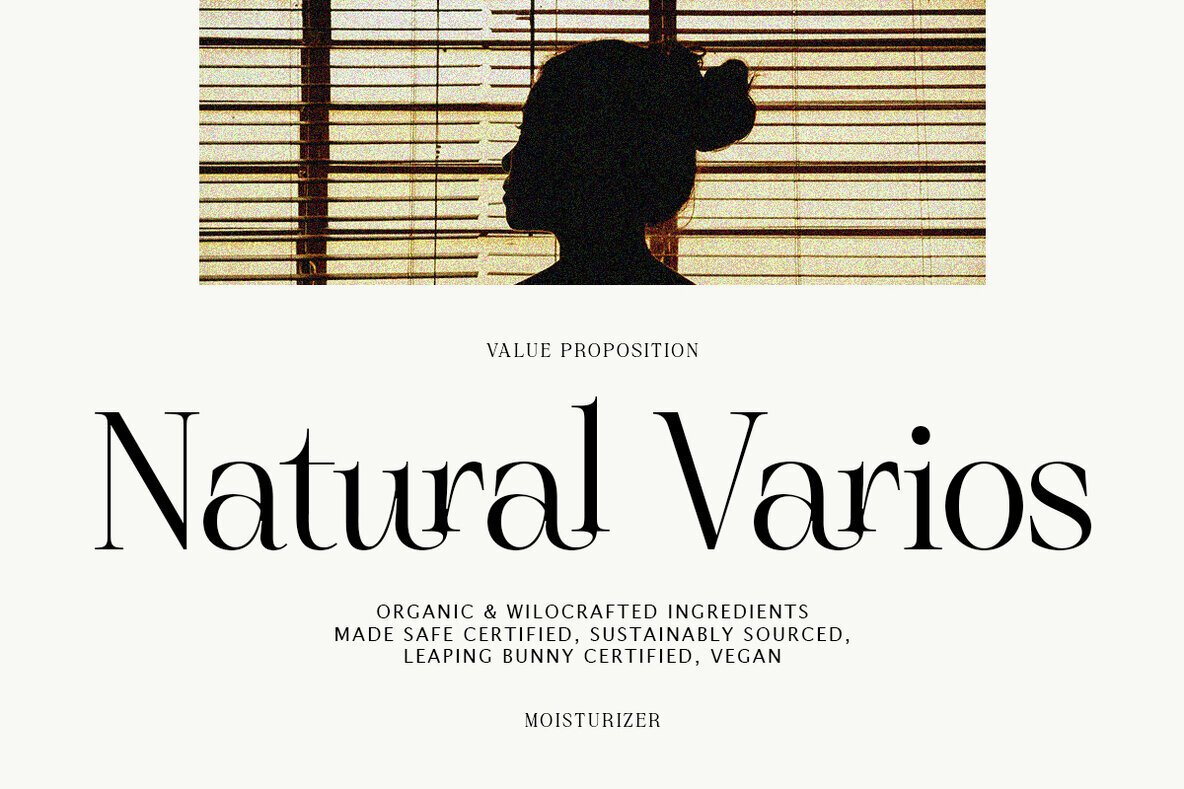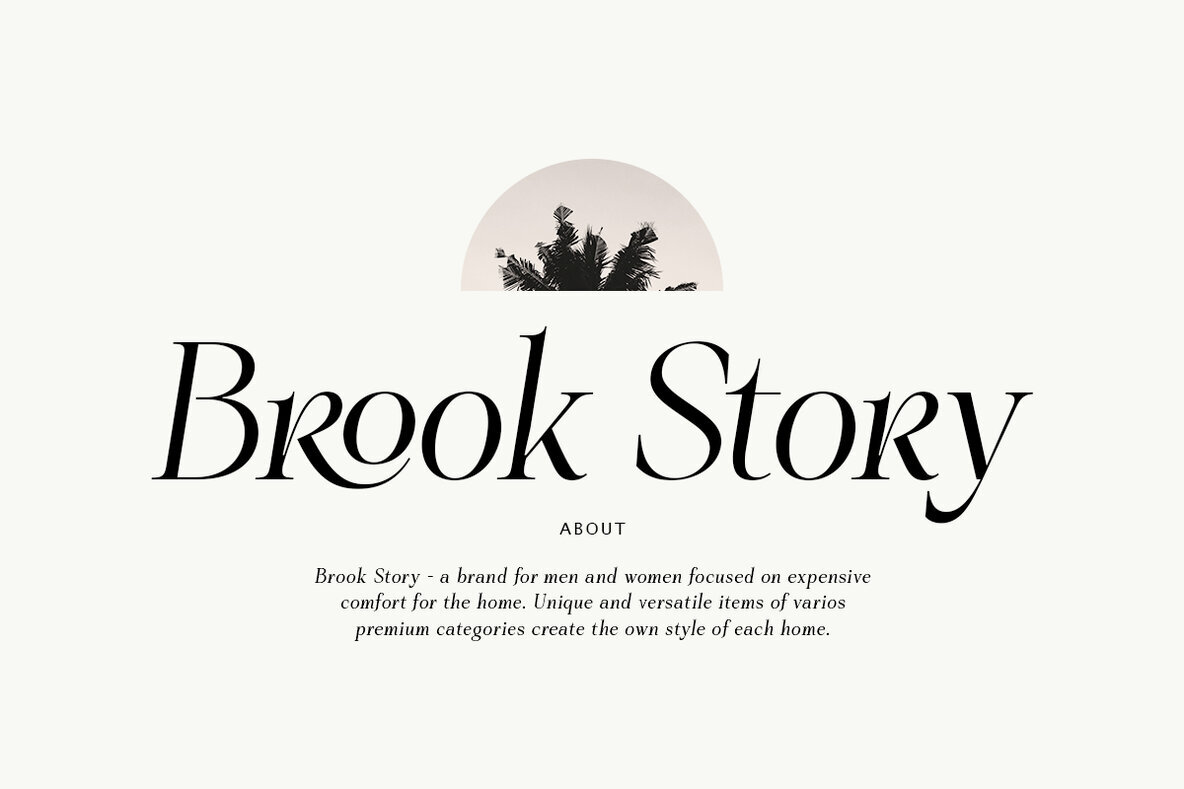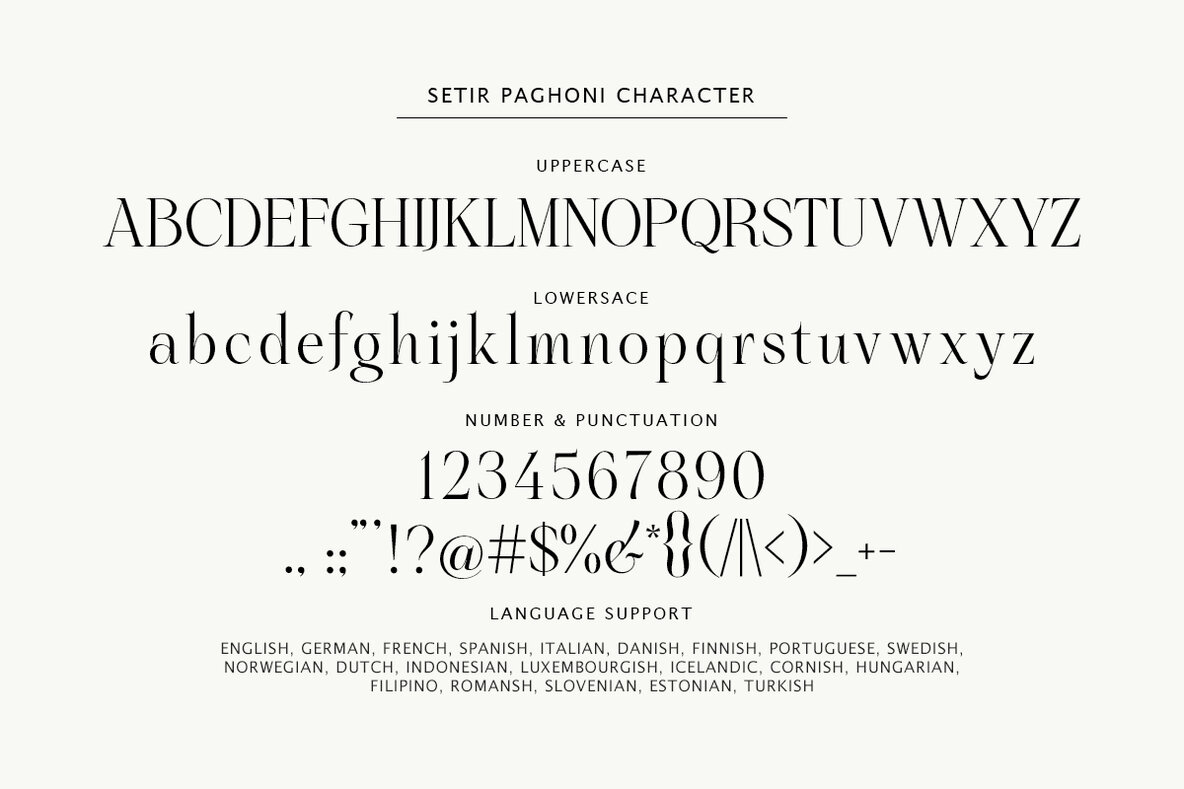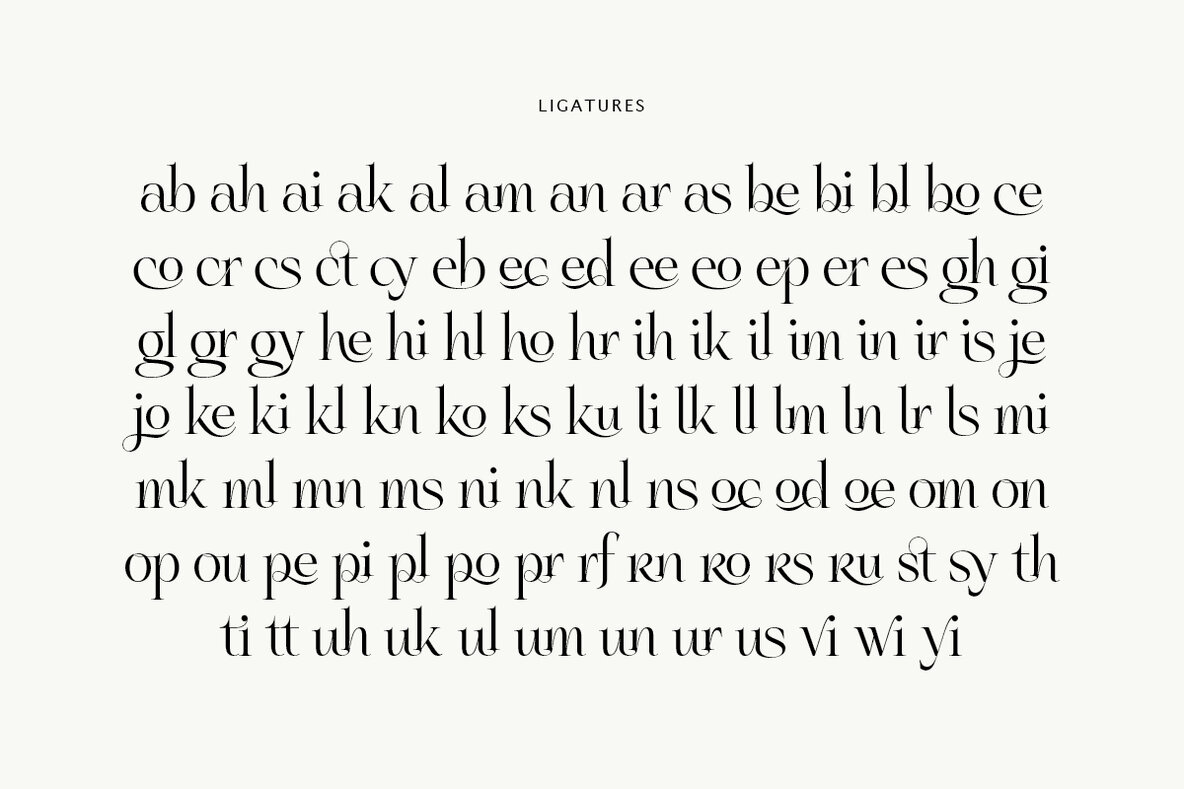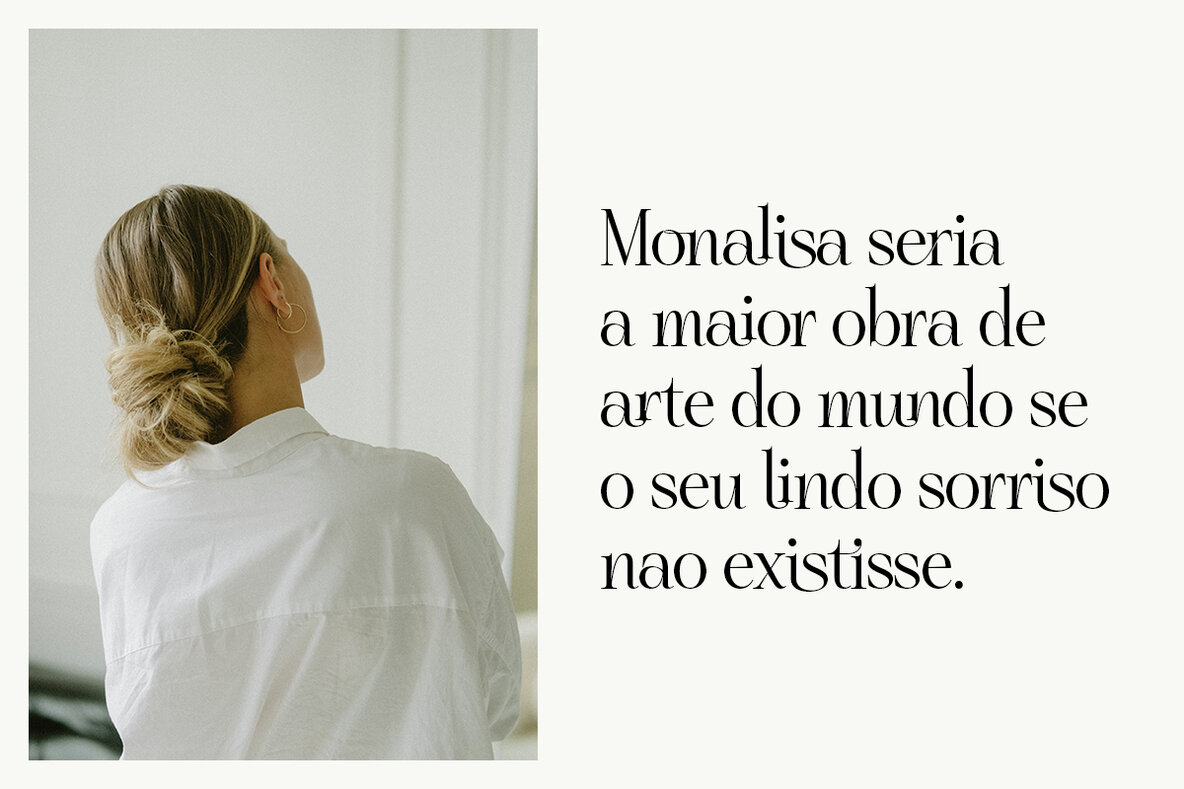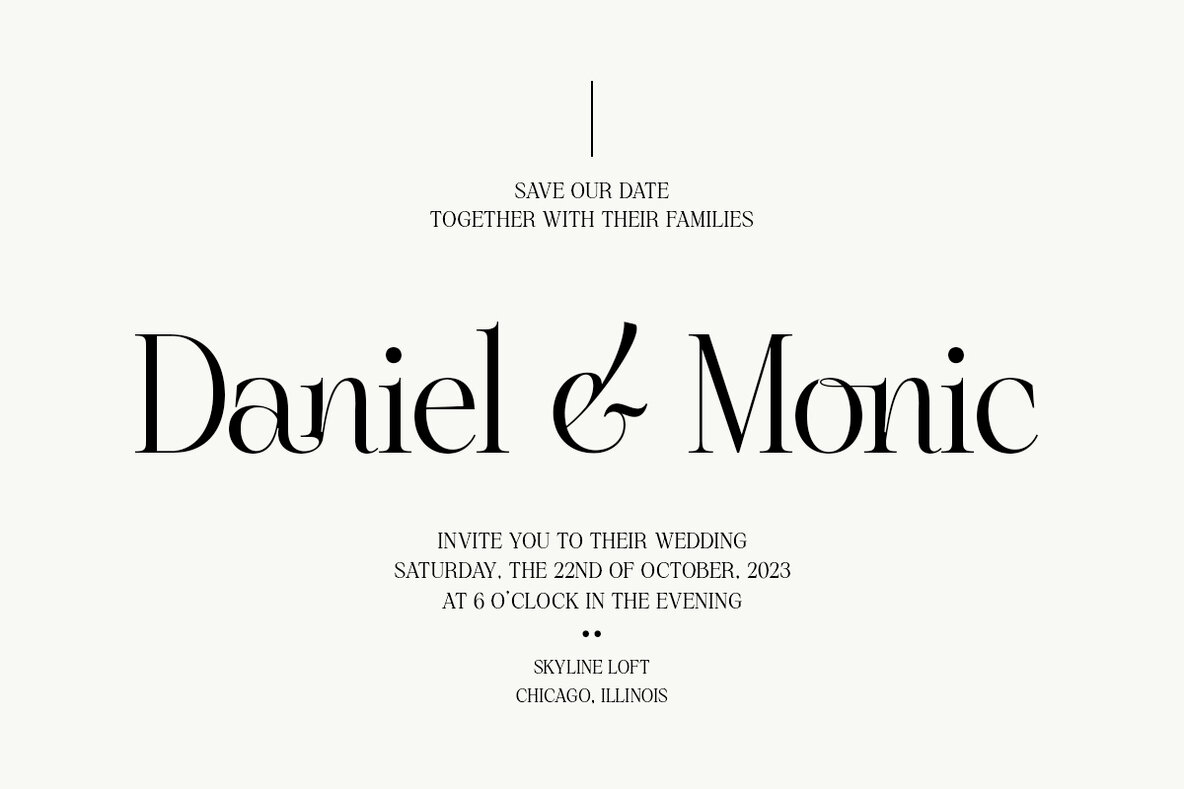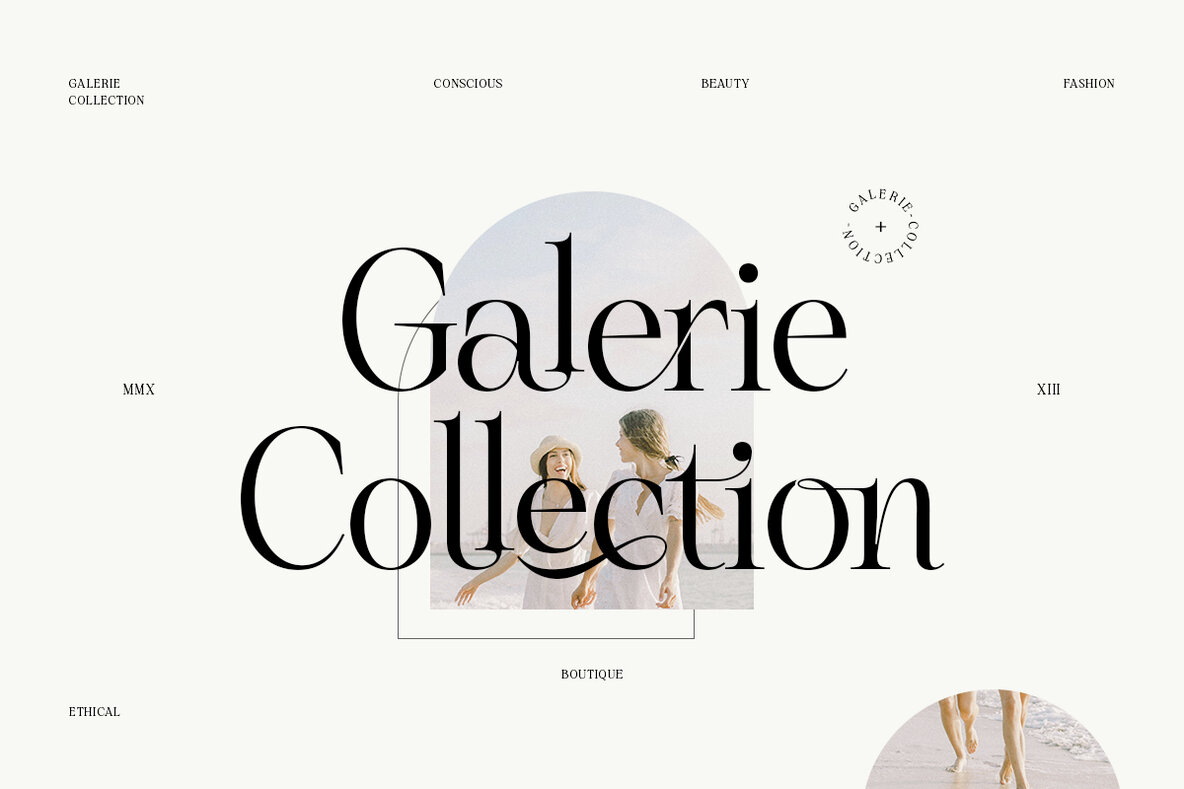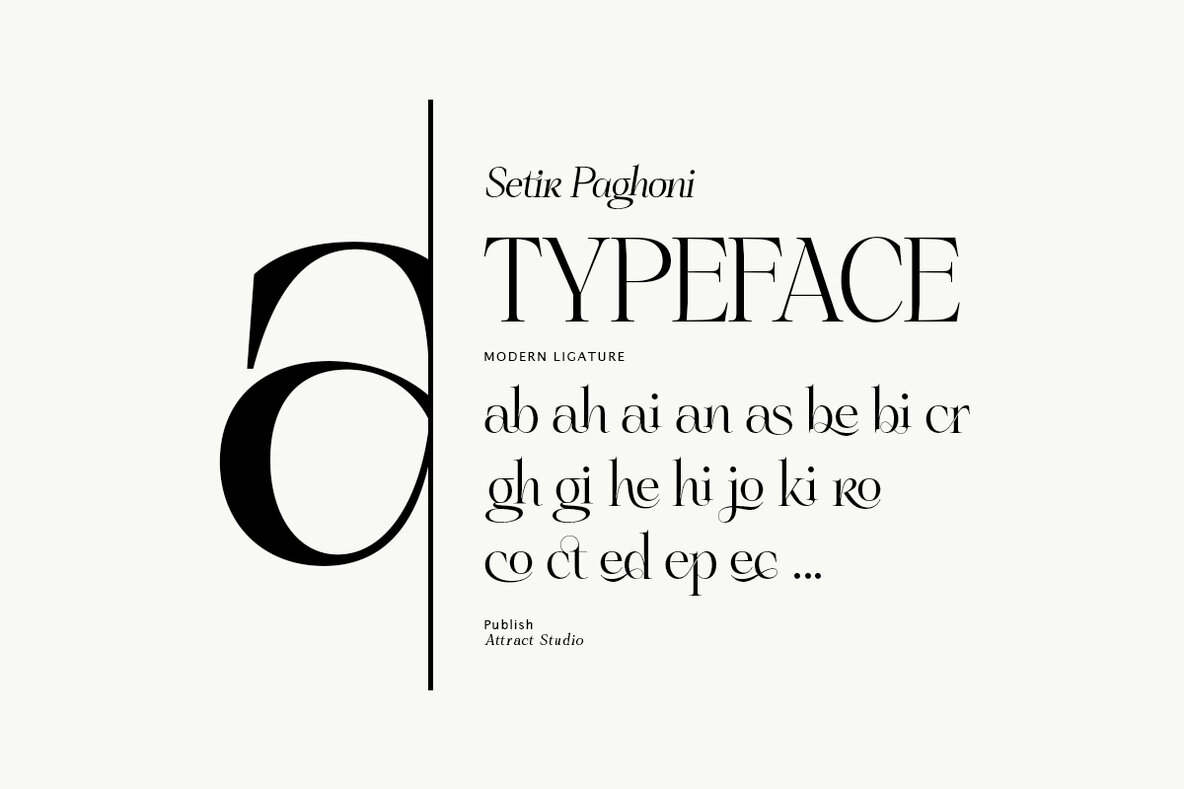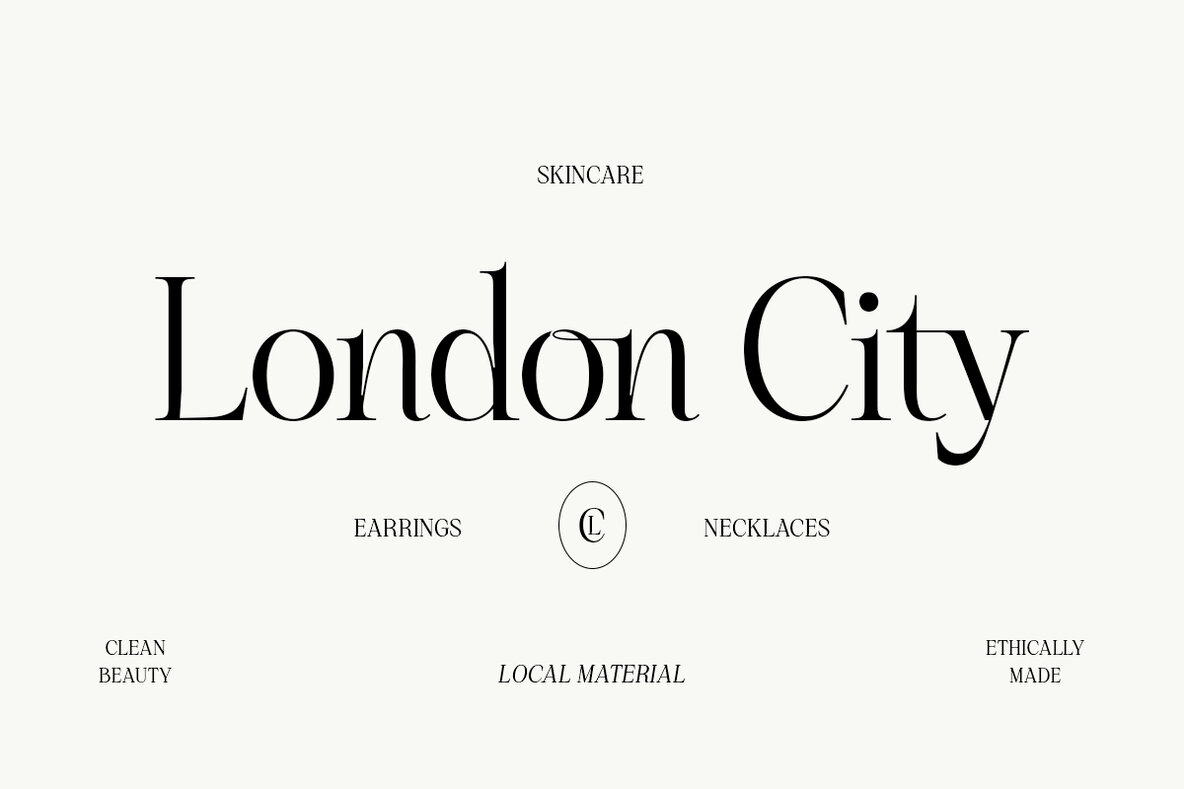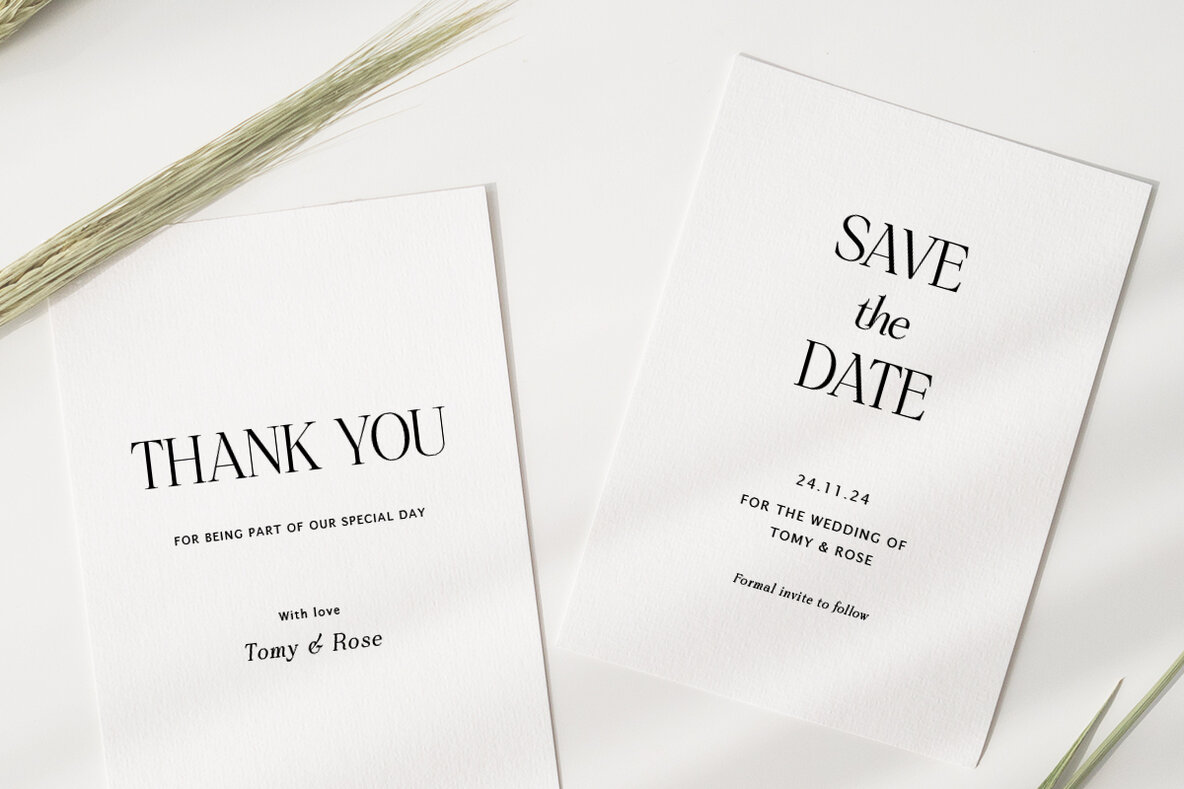
Setir Paghoni Font
Setir Paghoni is a modern serif font characterized by its smooth letter connections through unique ligatures. This font includes a matching slanted trim, making it a perfect choice for various applications such as wordmark logos, fashion headlines, editorial designs, branding projects, magazine titles, and more.Setir Paghoni: A Modern Serif with Unique Ligatures